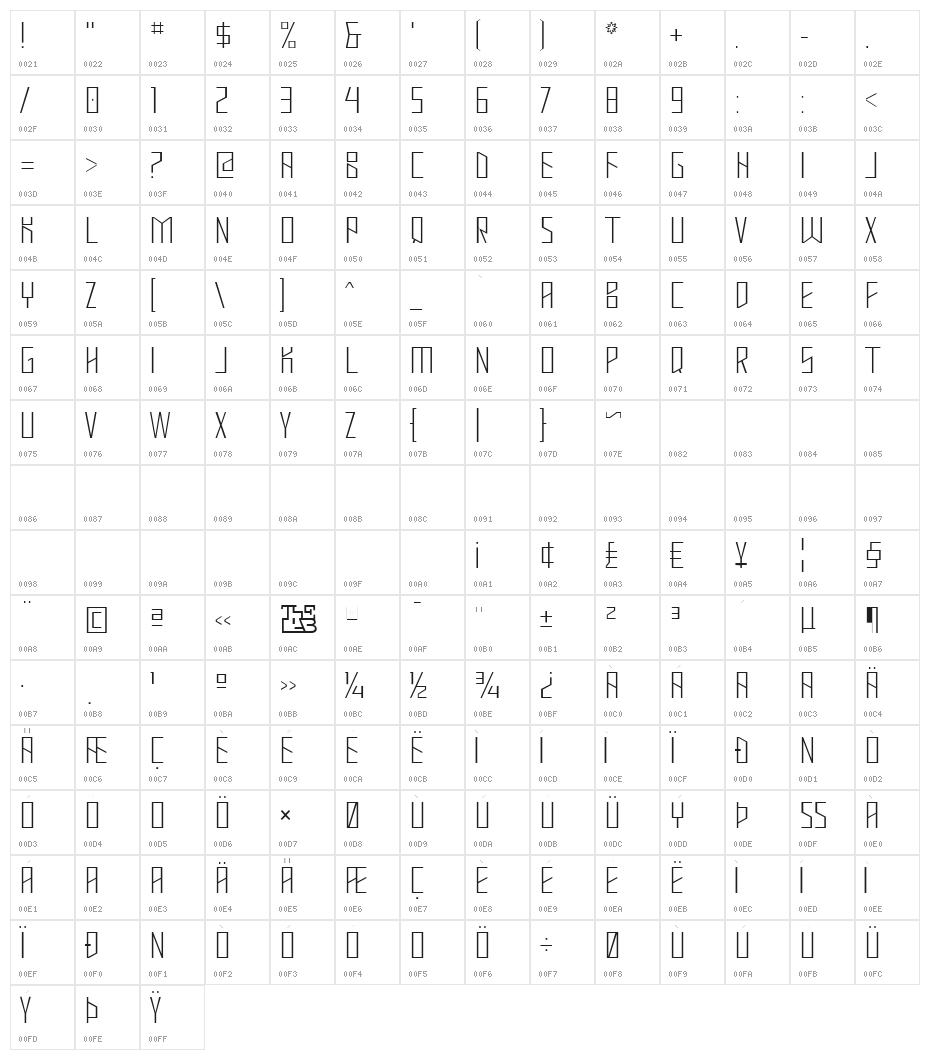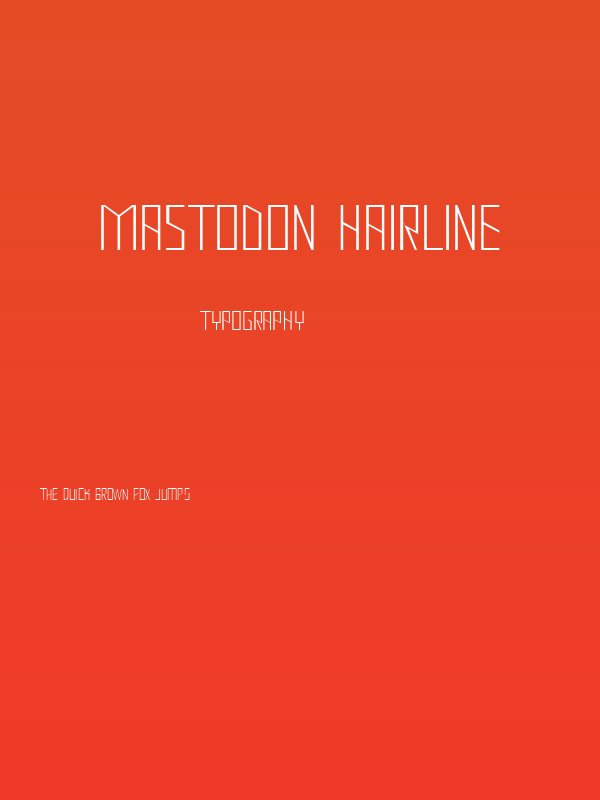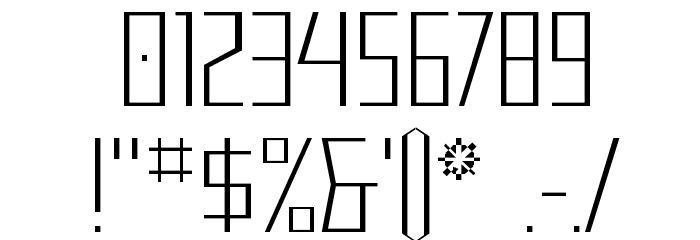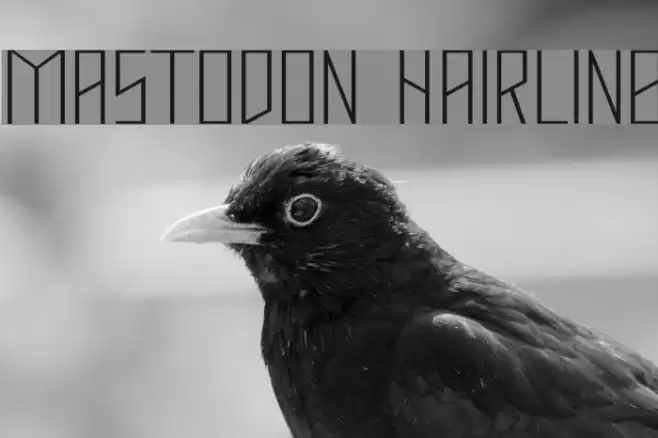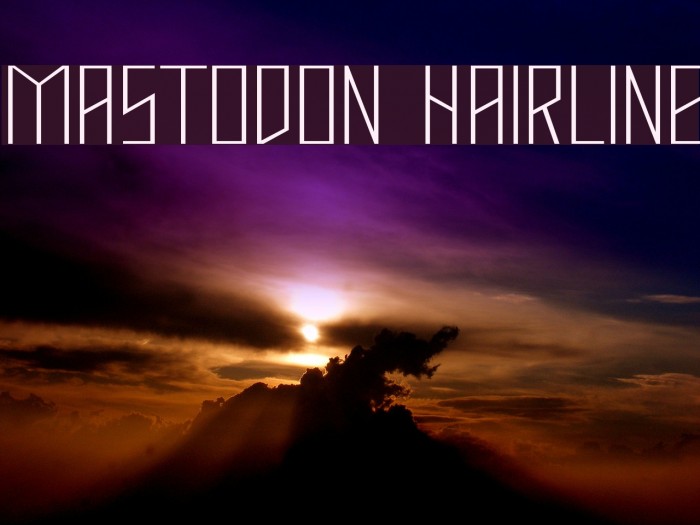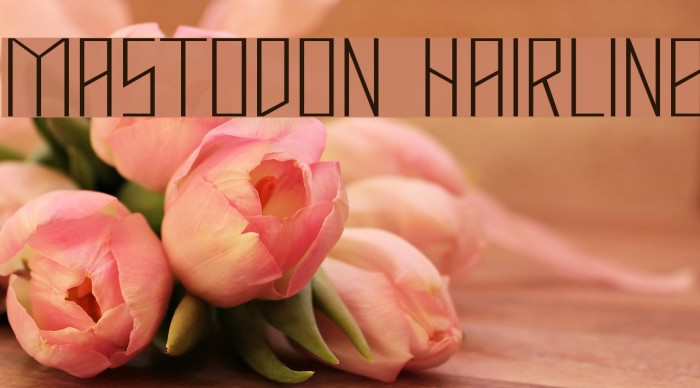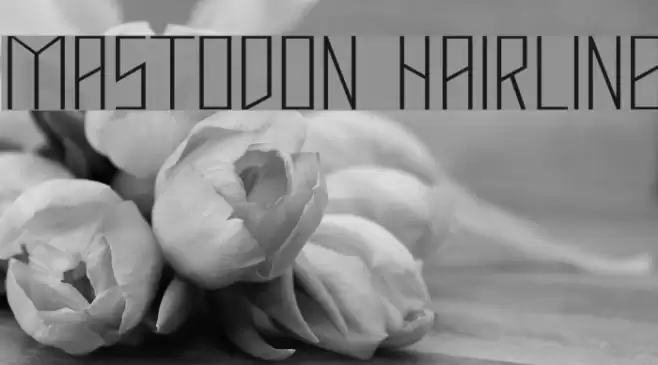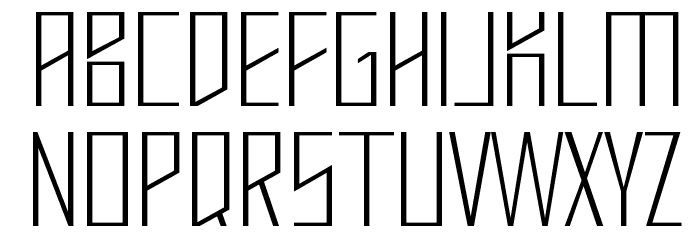
Mastodon Hairline Font
Mastodon Hairline Description
This font features a geometric and angular design, characterized by its thin, hairline strokes that give it a modern and minimalist appearance. The uppercase letters are tall and narrow, with sharp edges and a consistent stroke width throughout. The lowercase letters maintain the same angular style, creating a cohesive look. Numbers and special characters follow the same design principles, ensuring uniformity across all elements. The font's clean lines and open spacing make it highly legible, even at smaller sizes, while its unique style adds a distinctive touch to any project.
| Proposed Projects | Ideal for modern branding, tech-related designs, minimalist posters, and editorial layouts. |